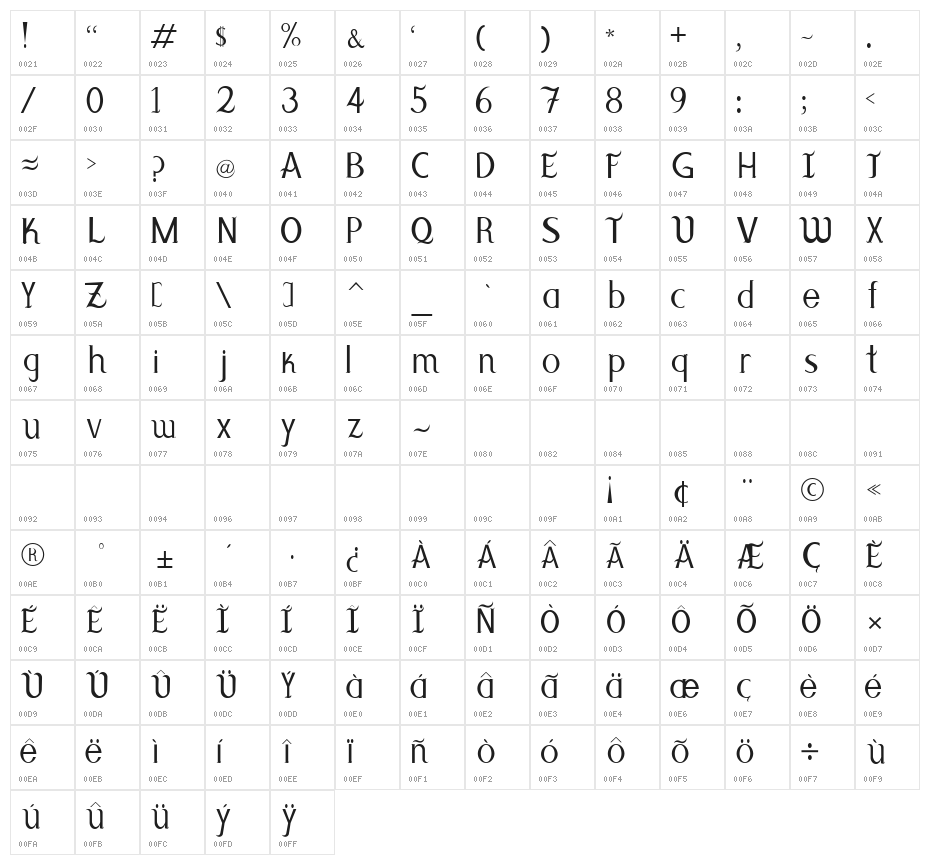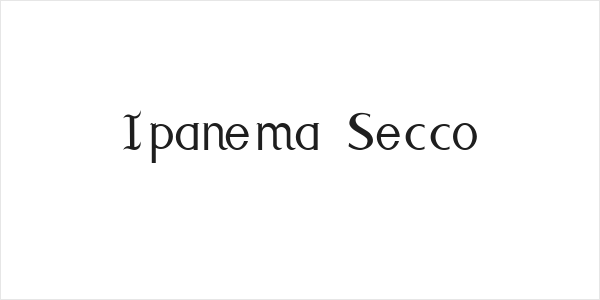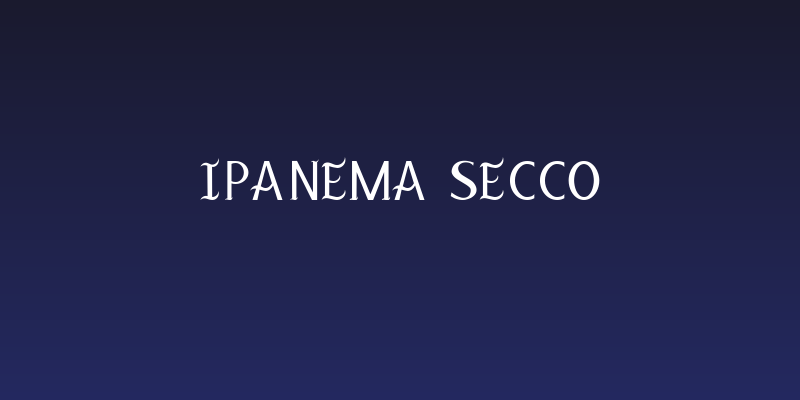
Ipanema Secco Font
Ipanema Secco Description
This font features a unique blend of classic and modern elements, characterized by its elegant curves and sharp serifs. The uppercase letters exhibit a distinct flair with slightly exaggerated strokes, giving them a sophisticated yet approachable appearance. The lowercase letters maintain a consistent style, with smooth transitions and a balanced weight that ensures readability. Numbers are designed with a similar aesthetic, offering clarity and style. The special characters complement the overall design, maintaining the font's cohesive look. This font is versatile, suitable for both formal and creative projects, providing a touch of elegance and modernity.